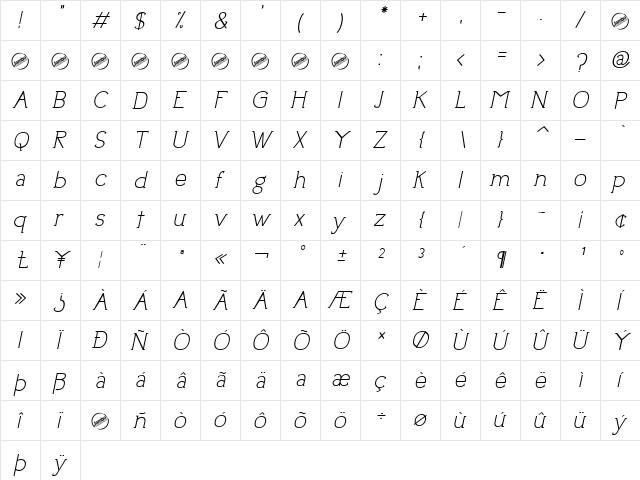
Uptown Elegance Italic
| Foundry | Jambo! |
| Designer | Jambo! |
Design Context for Uptown Elegance Typeface
Uptown Elegance offers clean, dependable letterforms without strong stylistic allegiance, making it a practical choice for designers who need flexibility. The slanted form adds forward momentum and visual energy.
Pro Tip: Try Uptown Elegance for annotation and caption copy alongside an upright companion — the contrast in angle creates a dynamic but ordered typographic system.